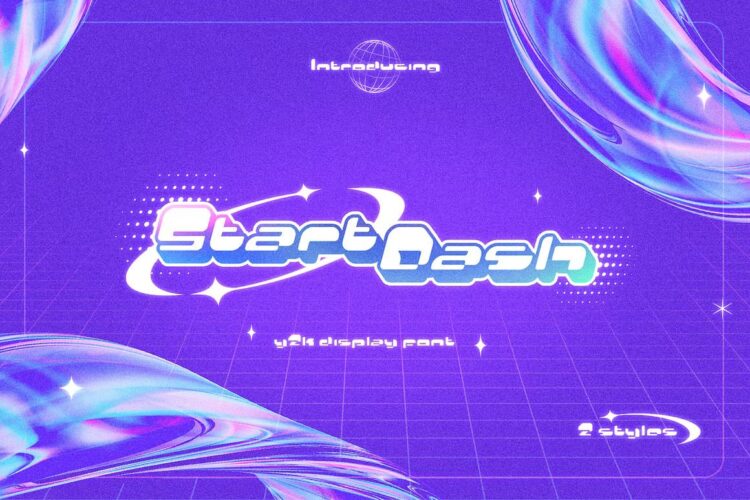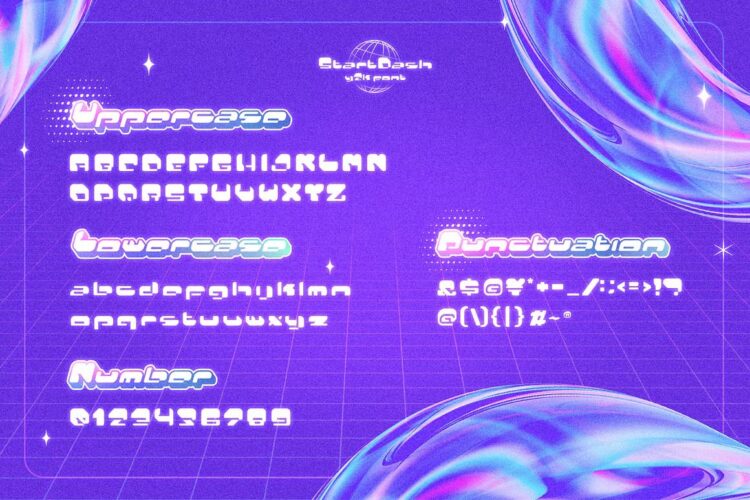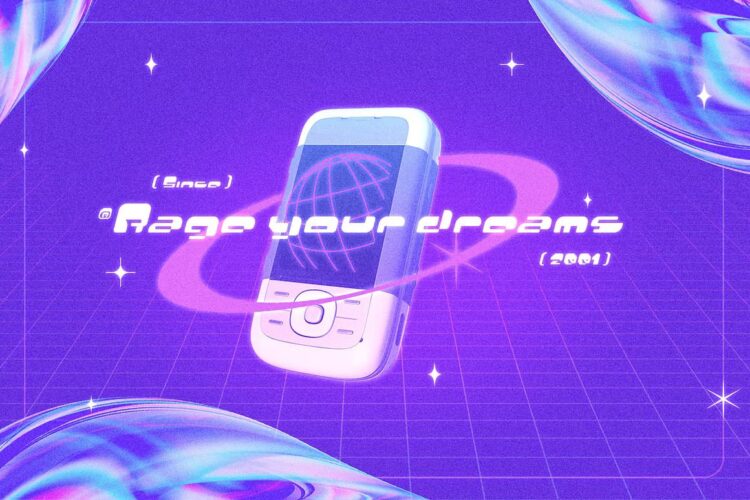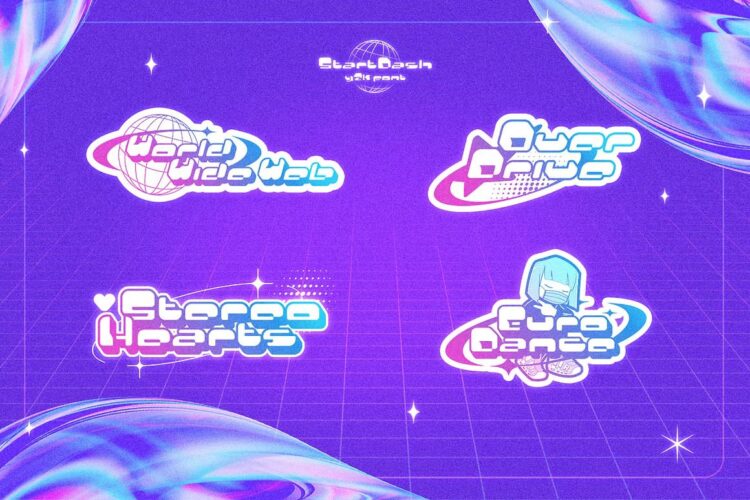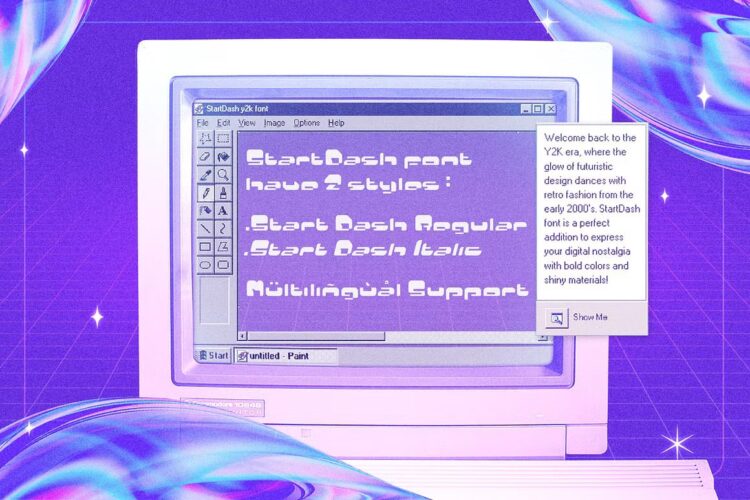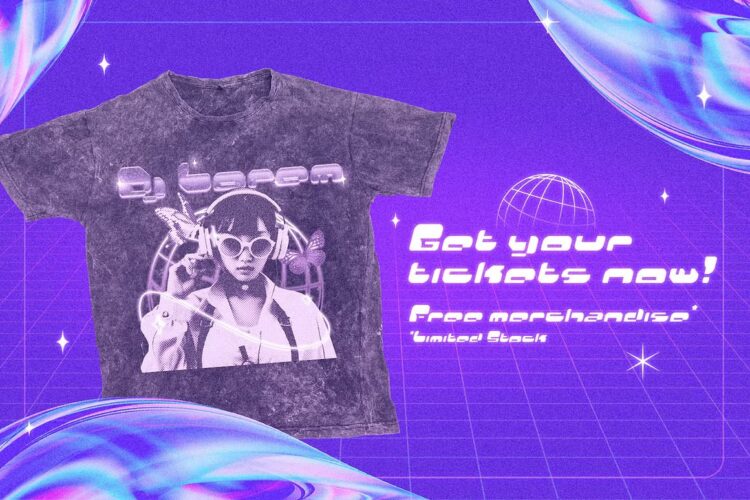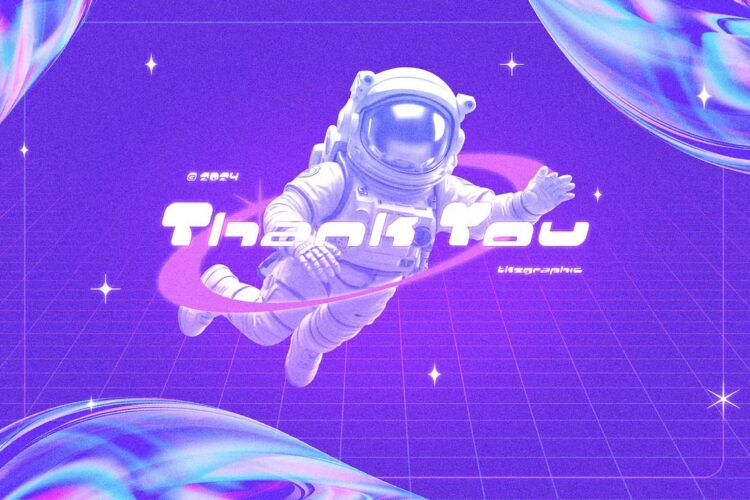
Welcome back to the Y2K era, where the glow of futuristic design dances with retro fashion from the early 2000’s. StartDash font is a perfect addition to express your digital nostalgia with bold colors and shiny materials ✨
Highlight uniqueness of your next projects such as Brands, Logo, Game tiltle, Movie, Thumbnail, Cover Books, Poster and many more with StartDash! ✨